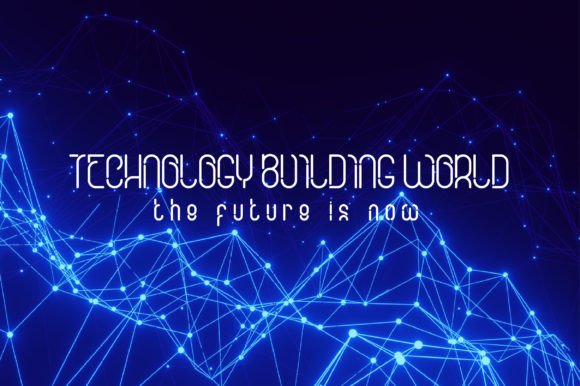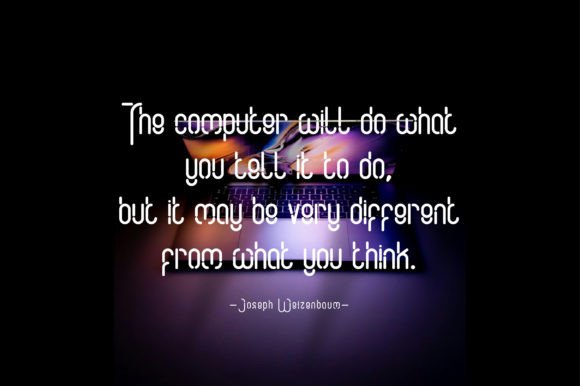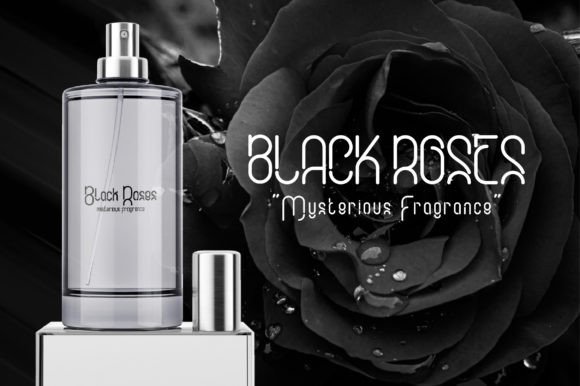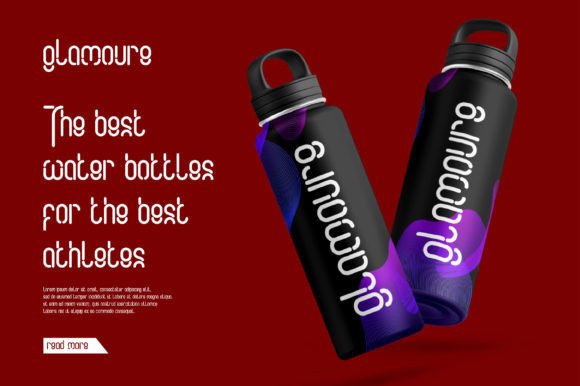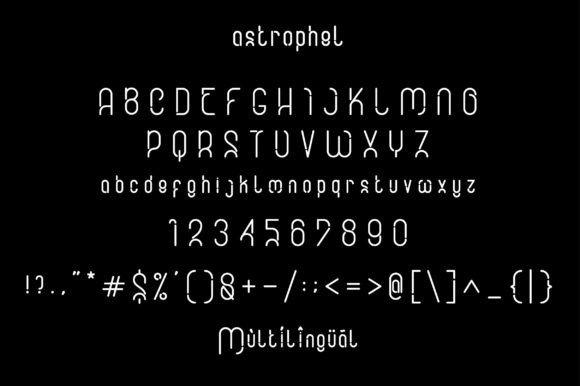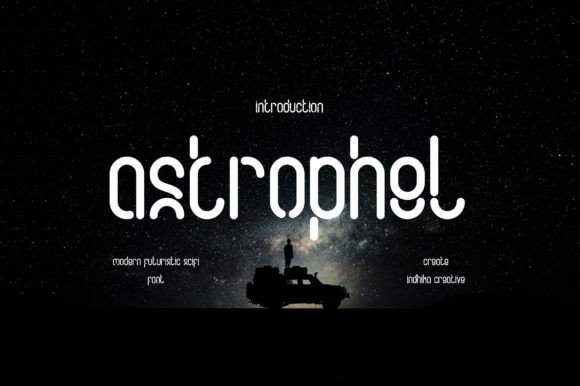
Introducing Astrophel Font: The Ultimate Futuristic Decorative Font for Modern Designs
In the realm of digital design, a font can make all the difference in setting the tone and aesthetic of your creative projects. If you’re looking for a font that embodies the spirit of the digital age, look no further than Astrophel Font. This sleek and futuristic decorative font is a masterstroke in monoline style, boasting a clean, crisp, and modern appeal that is sure to elevate your designs to new heights.
The Avant-Garde Spirit of Astrophel
Astrophel Font is the epitome of avant-garde design, perfectly capturing the essence of the technological wave that is sweeping across the design world. Its futuristic appeal is undeniable, making it an ideal choice for designers who want to infuse their projects with a sense of innovation and forward-thinking. Whether you’re working on a sci-fi inspired project or simply want to add a touch of modernity to your designs, Astrophel is the perfect font for you.
Key Features of Astrophel Font
So, what sets Astrophel Font apart from other fonts? Here are some of its key features:
• Monoline Style: Astrophel boasts a sleek and modern monoline style, characterized by clean lines and a crisp aesthetic.
• Futuristic Appeal: This font is perfect for designs that require a futuristic or sci-fi touch, making it ideal for projects that require a sense of innovation and cutting-edge style.
• Versatility: Astrophel Font is versatile and can be used for a wide range of design projects, from branding and advertising to packaging and digital media.
• Contemporary Flair: This font lends a distinctively cool, cutting-edge, and contemporary flair to your designs, making it perfect for designers who want to stay ahead of the curve.
Why Choose Astrophel Font?
With so many fonts available, why choose Astrophel Font? Here are just a few reasons why designers and crafters are falling in love with this amazing font:
• Unique and Distinctive: Astrophel Font is a unique and distinctive font that will set your designs apart from the crowd.
• Easily Readable: Despite its futuristic appeal, Astrophel Font is easily readable, making it perfect for use in a wide range of design projects.
• Highly Versatile: This font can be used for both digital and print projects, making it a valuable addition to any designer’s toolkit.
• Perfect for Sci-Fi and Tech-Inspired Designs: If you’re working on a sci-fi or tech-inspired project, Astrophel Font is the perfect choice.
How to Use Astrophel Font in Your Designs
So, how can you use Astrophel Font in your designs? Here are a few ideas to get you started:
• Branding and Logo Design: Use Astrophel Font to create a unique and memorable brand identity that will set your business apart.
• Digital Media: Astrophel Font is perfect for use in digital media, including social media graphics, videos, and websites.
• Packaging Design: Add a touch of modernity to your packaging designs with Astrophel Font.
• Advertising and Marketing: Use Astrophel Font to create eye-catching advertising and marketing materials that will grab attention.
In conclusion, Astrophel Font is a game-changing decorative font that is perfect for designers and crafters who want to add a touch of modernity and futurism to their designs. With its sleek and clean monoline style, Astrophel Font is ideal for a wide range of design projects, from sci-fi and tech-inspired designs to branding and advertising. So why wait? Download Astrophel Font today and take your designs to the next level!